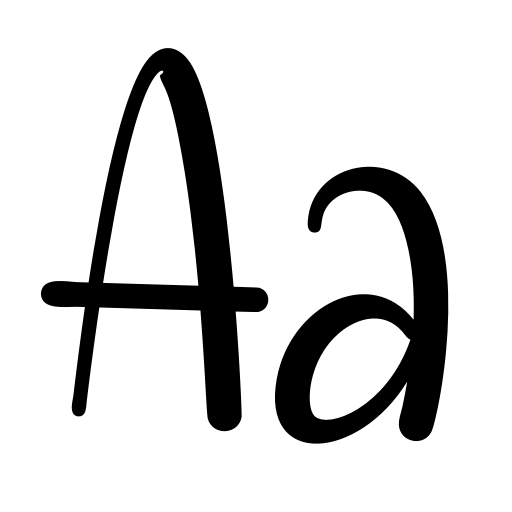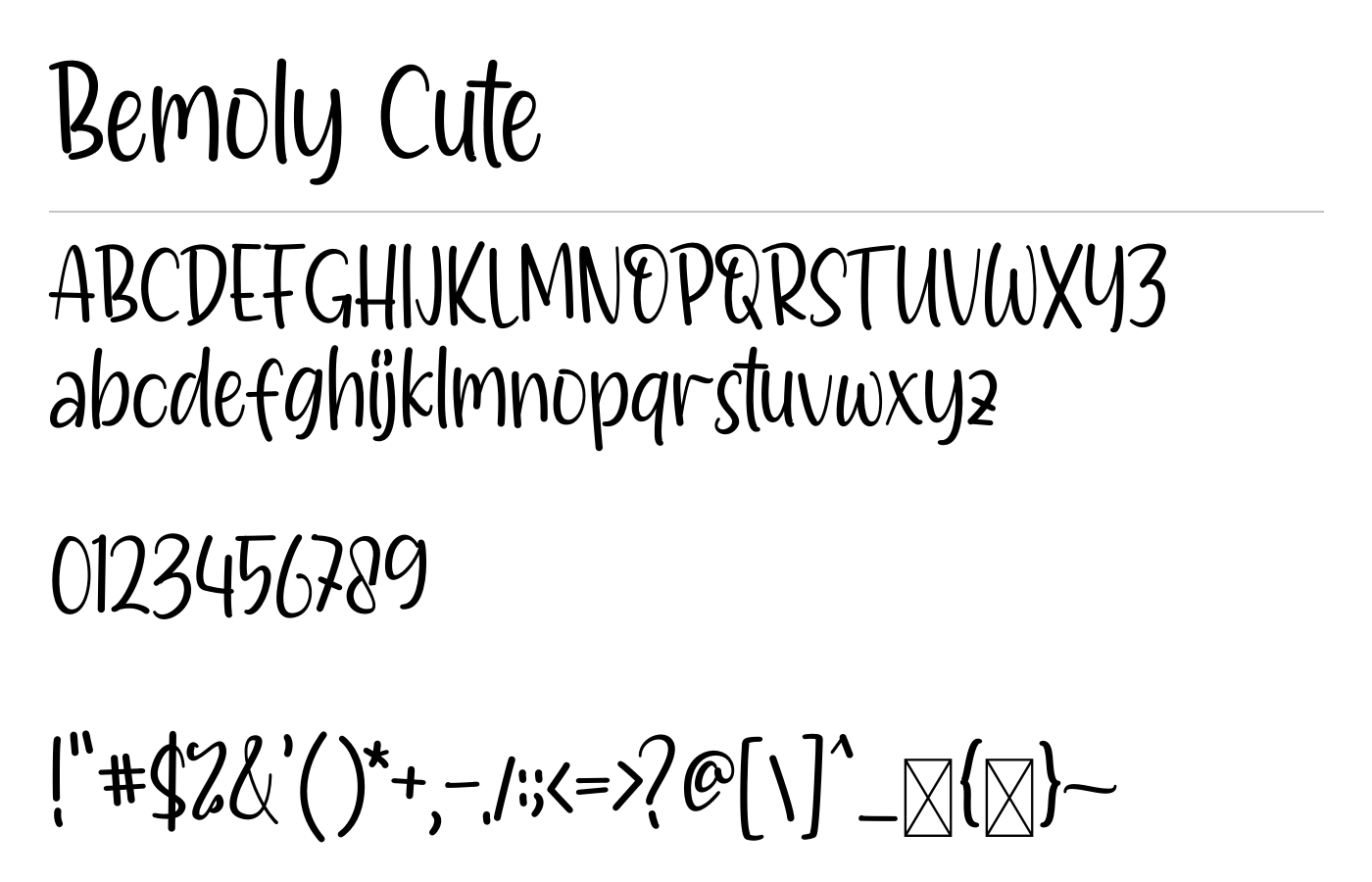
Bemoly Cute is a playful, casual handwritten sans serif font with a light weight and tall, narrow letterforms that convey a friendly, approachable vibe. Its informal strokes and slightly irregular shapes make it perfect for projects needing a warm, personal touch, such as children's books, greeting cards, or casual branding. This font works well in headlines, logos, and any design aiming for a charming, easygoing feel.
Bemoly Cute Font